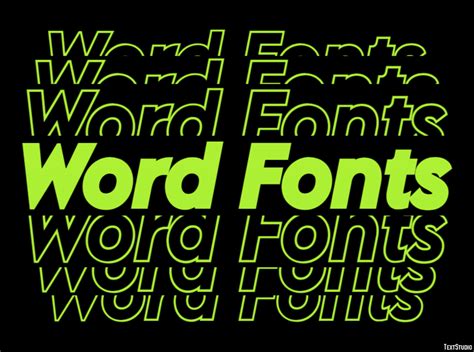
Fonts are the stylistic elements of text, which are used to add meaning, emphasis and emotion to written words. Fonts are one of the most important elements of a document, as they help to determine the overall look and feel of a piece of writing. Fonts can be used to add a sense of professionalism, or to make a document stand out from the crowd. In the past, fonts were limited to a few basic typefaces, but with the development of digital technology, there are now thousands of fonts available for download.
Benefits of Using Different Fonts
Using different fonts in a document can help to make it more visually appealing and easier to read. It can also help to differentiate between different sections of a document, such as headings, titles, and body text. Furthermore, it can help to create a more professional look and feel, as well as help to make a document look more interesting. In addition, using different fonts can help to create a unique style for a document, which can help to distinguish it from others.
Example of Stop Using the Same Fonts
For example, if you are creating a presentation for work, you might want to use a font such as Helvetica or Arial, which are both professional-looking fonts. On the other hand, if you are creating a document for a fun project, you might want to use a more unique font, such as Papyrus or Comic Sans. By using different fonts, you can create a unique look and feel for your document.
Points of View about Stop Using the Same Fonts
Using the same font for all your documents can become boring and unprofessional, so it’s important to experiment with different fonts. By using different fonts, you can create a unique style and add emphasis to certain parts of your document. Furthermore, using different fonts can help to create a sense of professionalism and make a document stand out from the crowd.
Conclusion